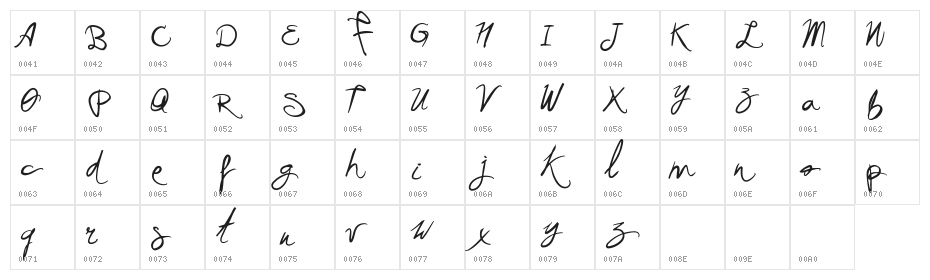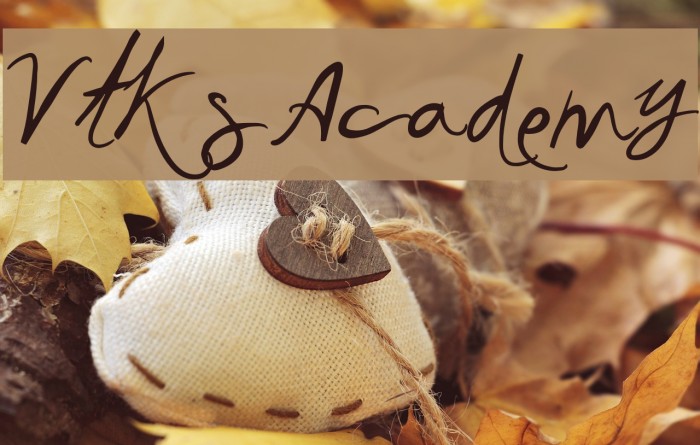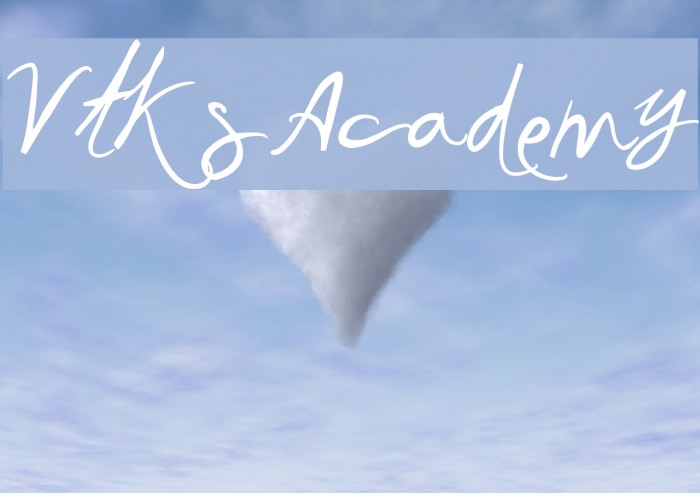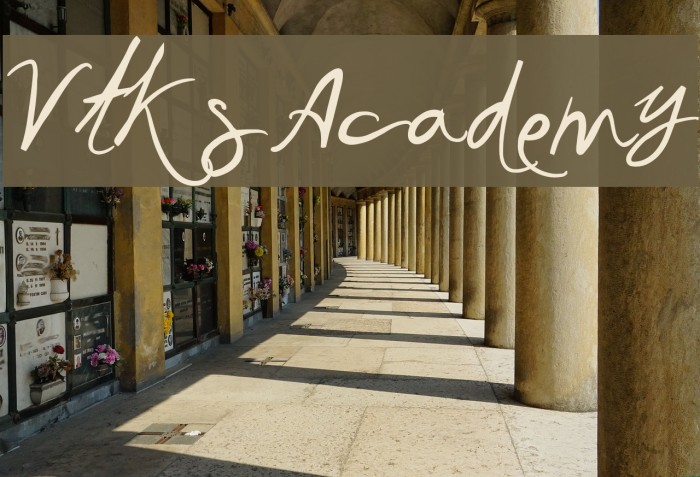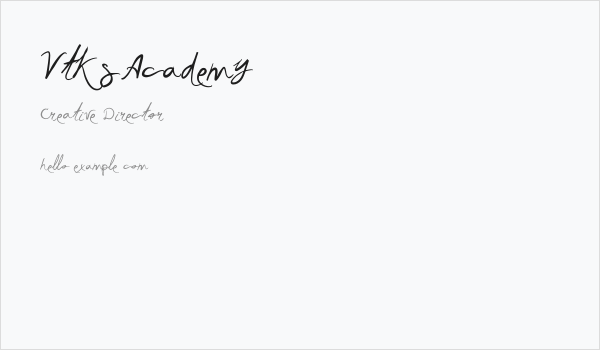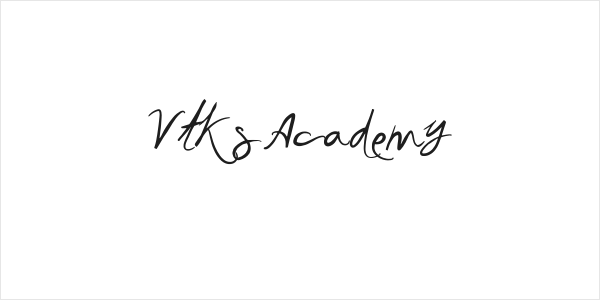
Vtks Academy Font
Vtks Academy Description
This font exudes an artistic and expressive flair, characterized by its fluid, cursive strokes that mimic the elegance of handwritten script. The uppercase letters are bold and dynamic, with sweeping curves and intricate loops that add a sense of movement and grace. The lowercase letters maintain this fluidity, offering a harmonious blend of style and readability. The numbers and special characters are crafted with the same attention to detail, ensuring a consistent aesthetic throughout. This font is perfect for projects that require a touch of sophistication and creativity, making it ideal for invitations, branding, and artistic endeavors.
| Proposed Projects | Ideal for wedding invitations, artistic branding, and creative design projects. |